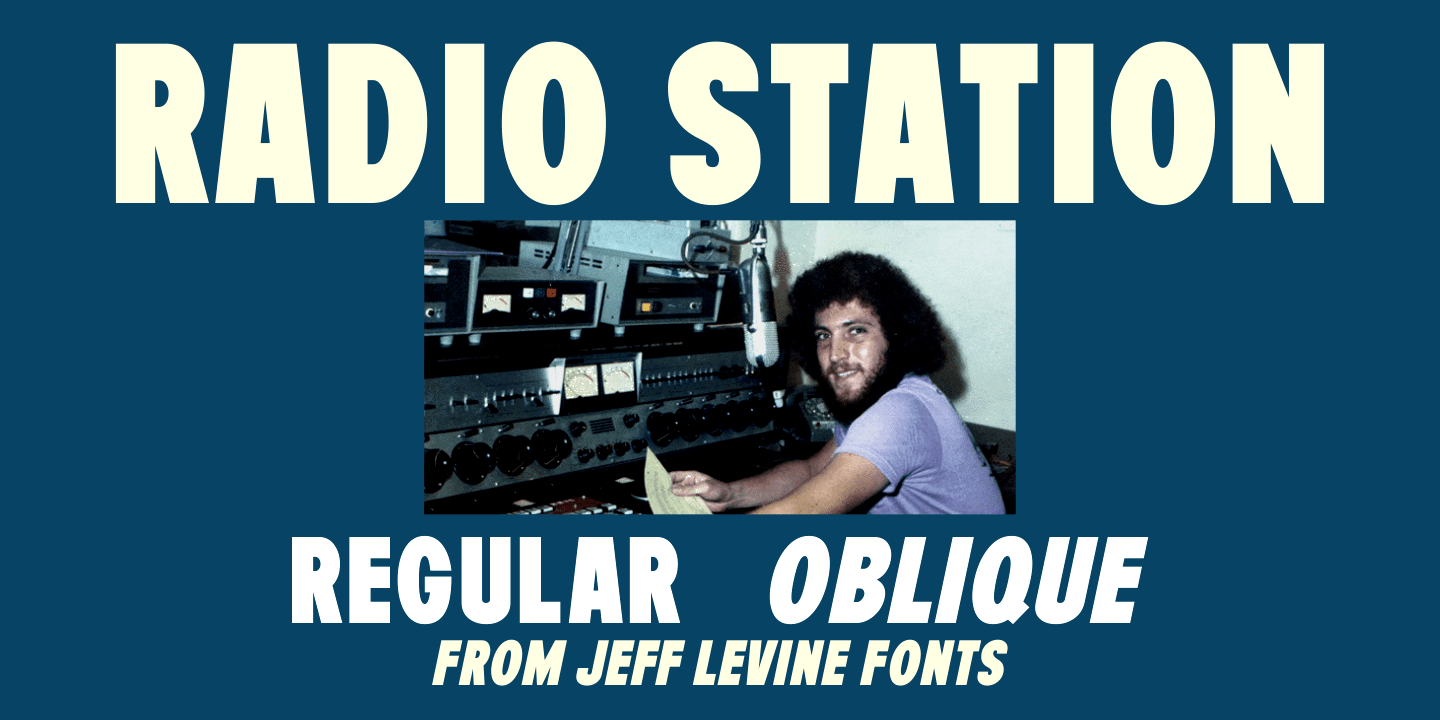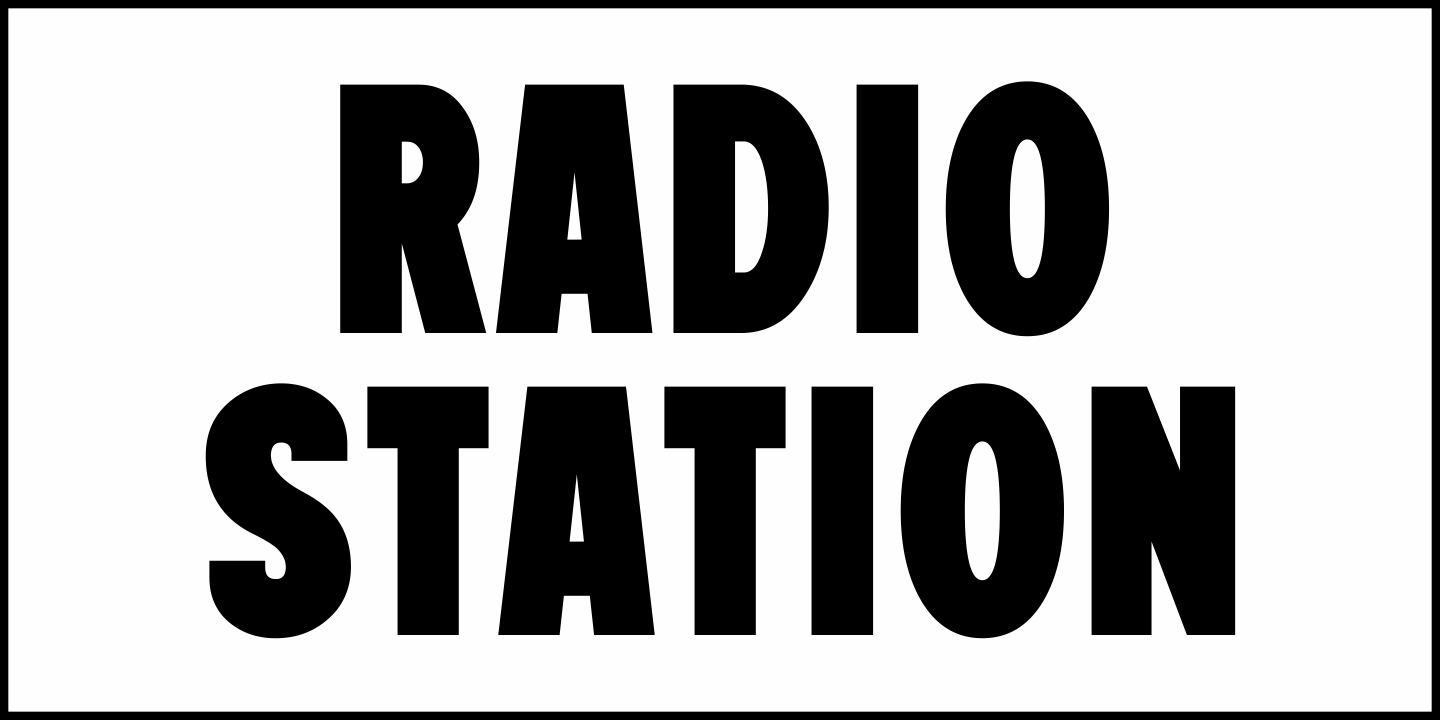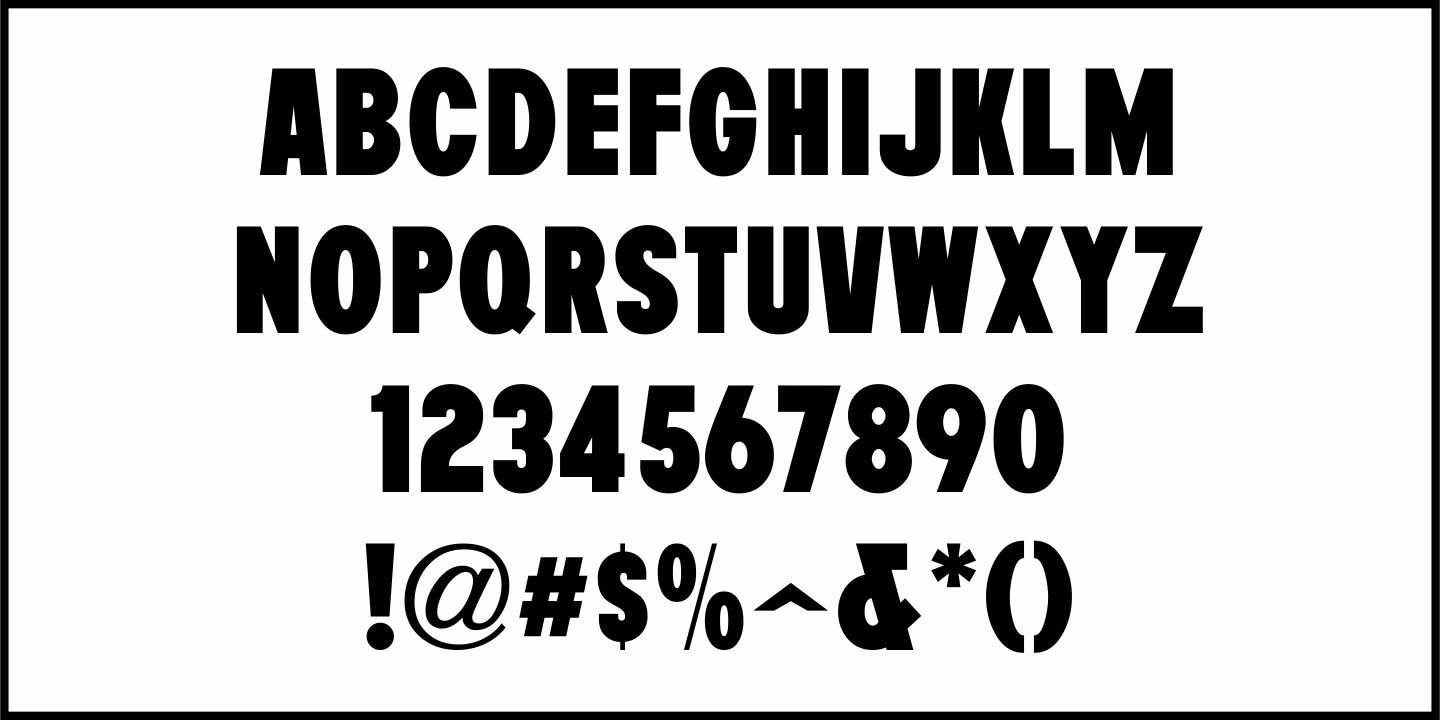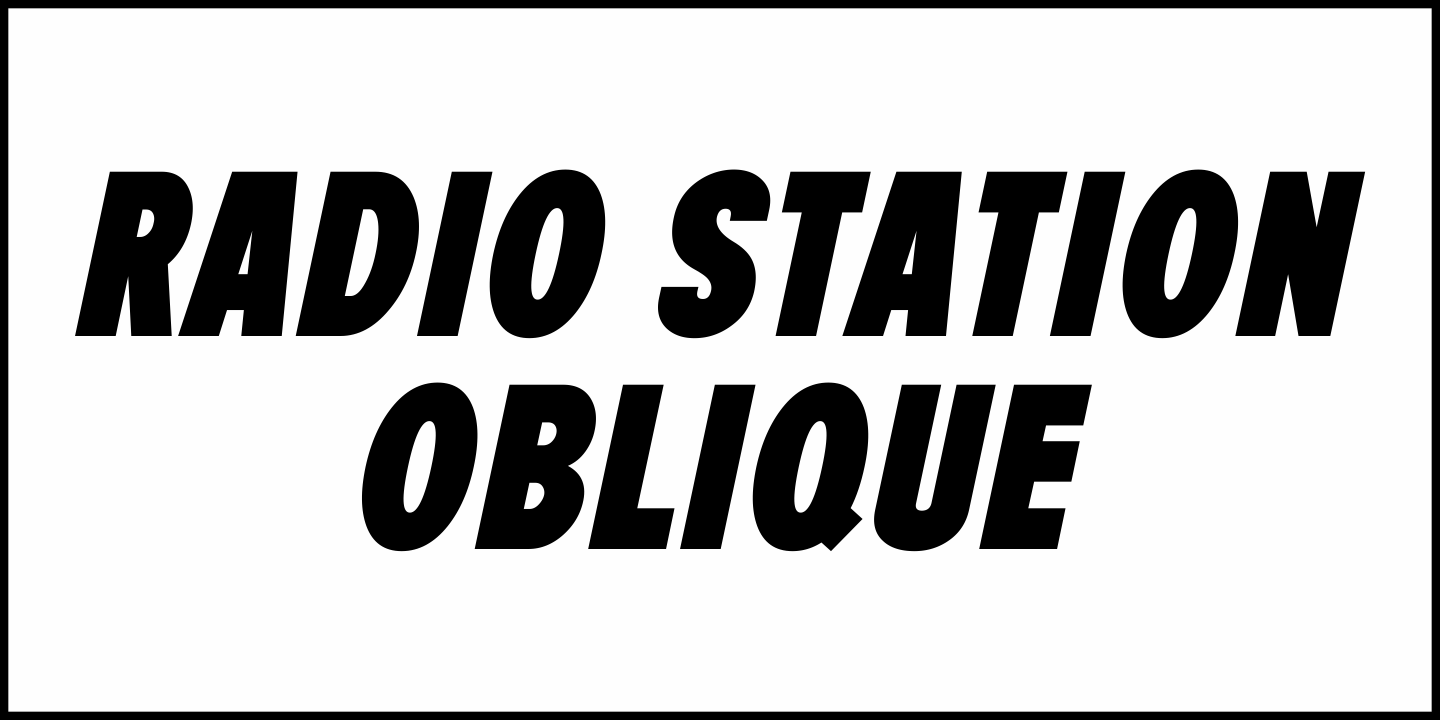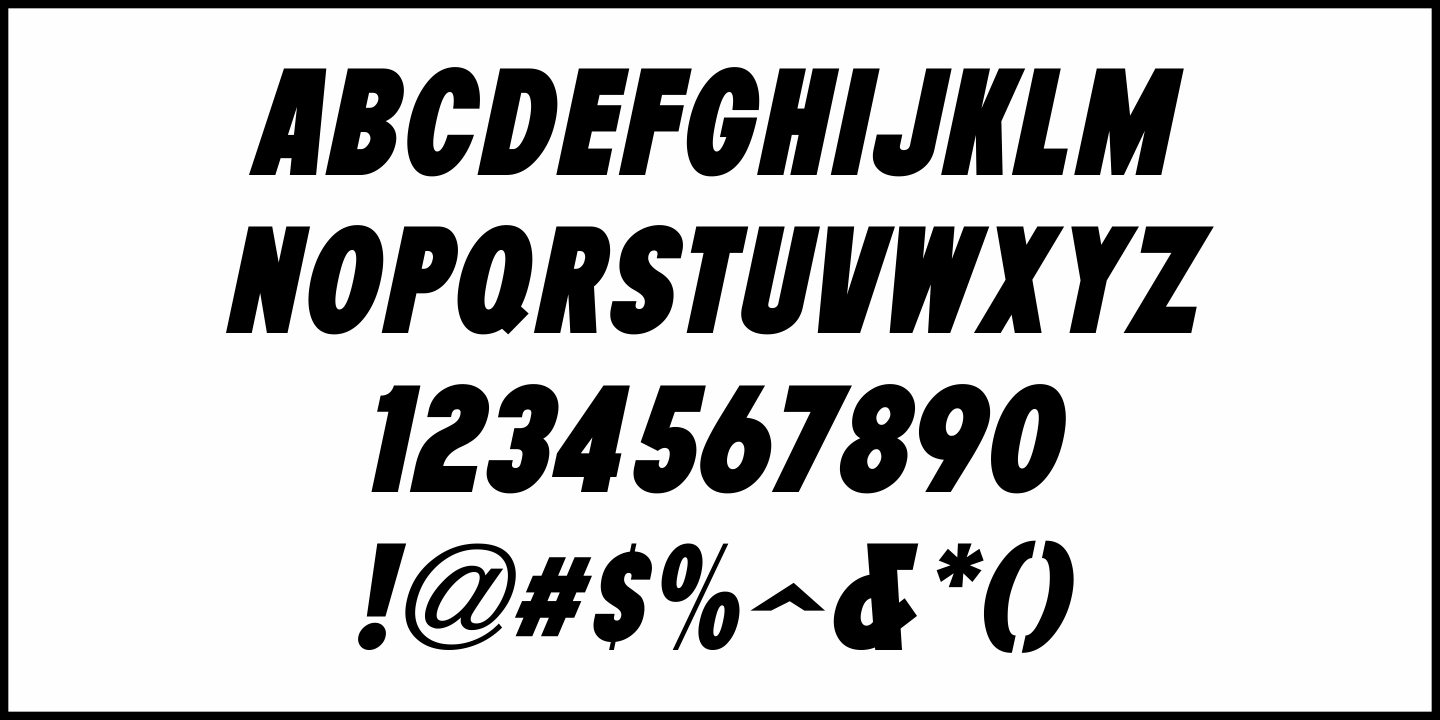
Radio Station
A February 11, 1944 ad in Motion Picture Daily for a movie tie-in promotion between RKO Pictures and WLW Cincicinati had the lettering hand drawn in an extra bold sans serif style.
This condensed type design has a bit of a casual look to it, but still packs the punch to get your message across.
Radio Station JNL is available in both regular and oblique versions.